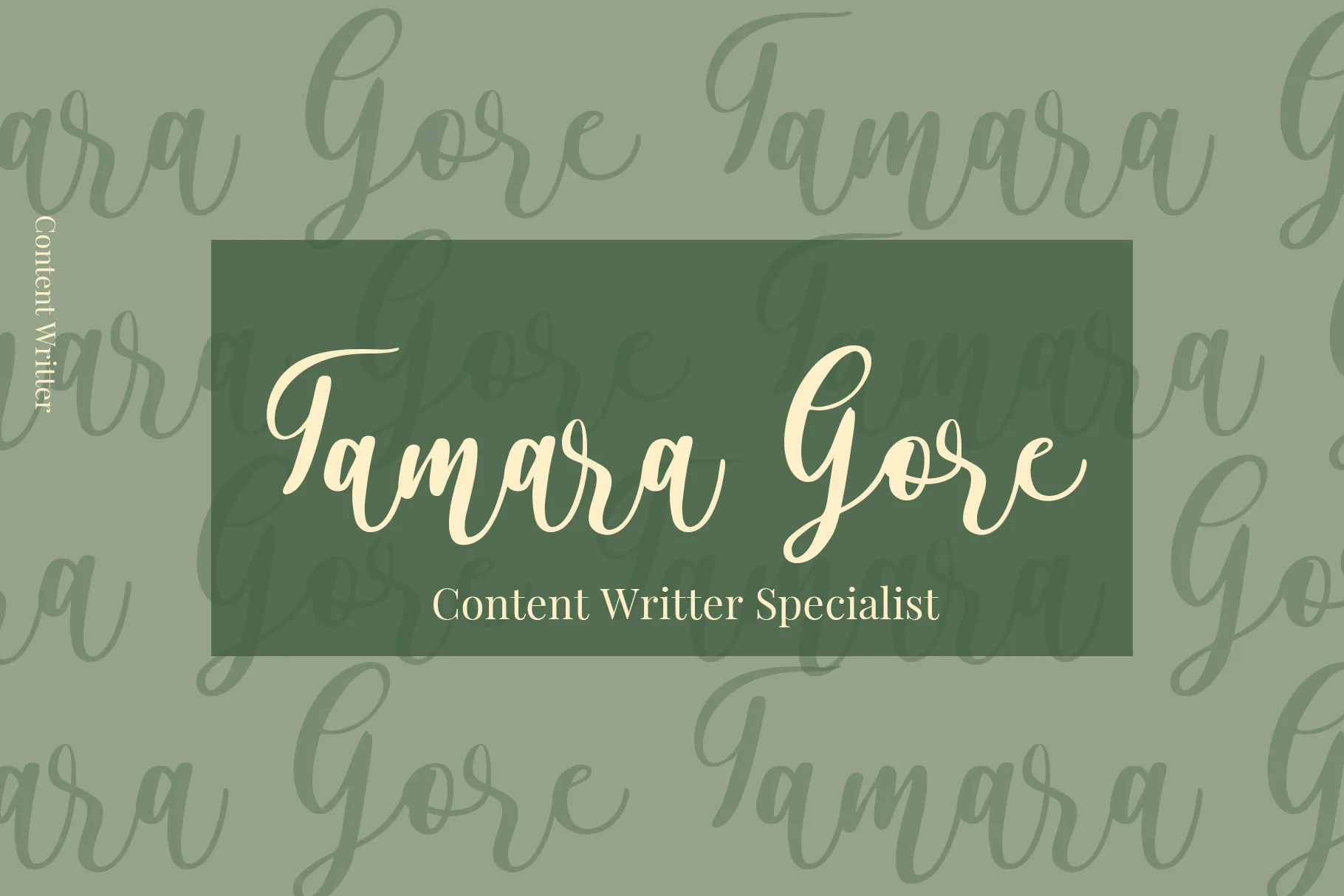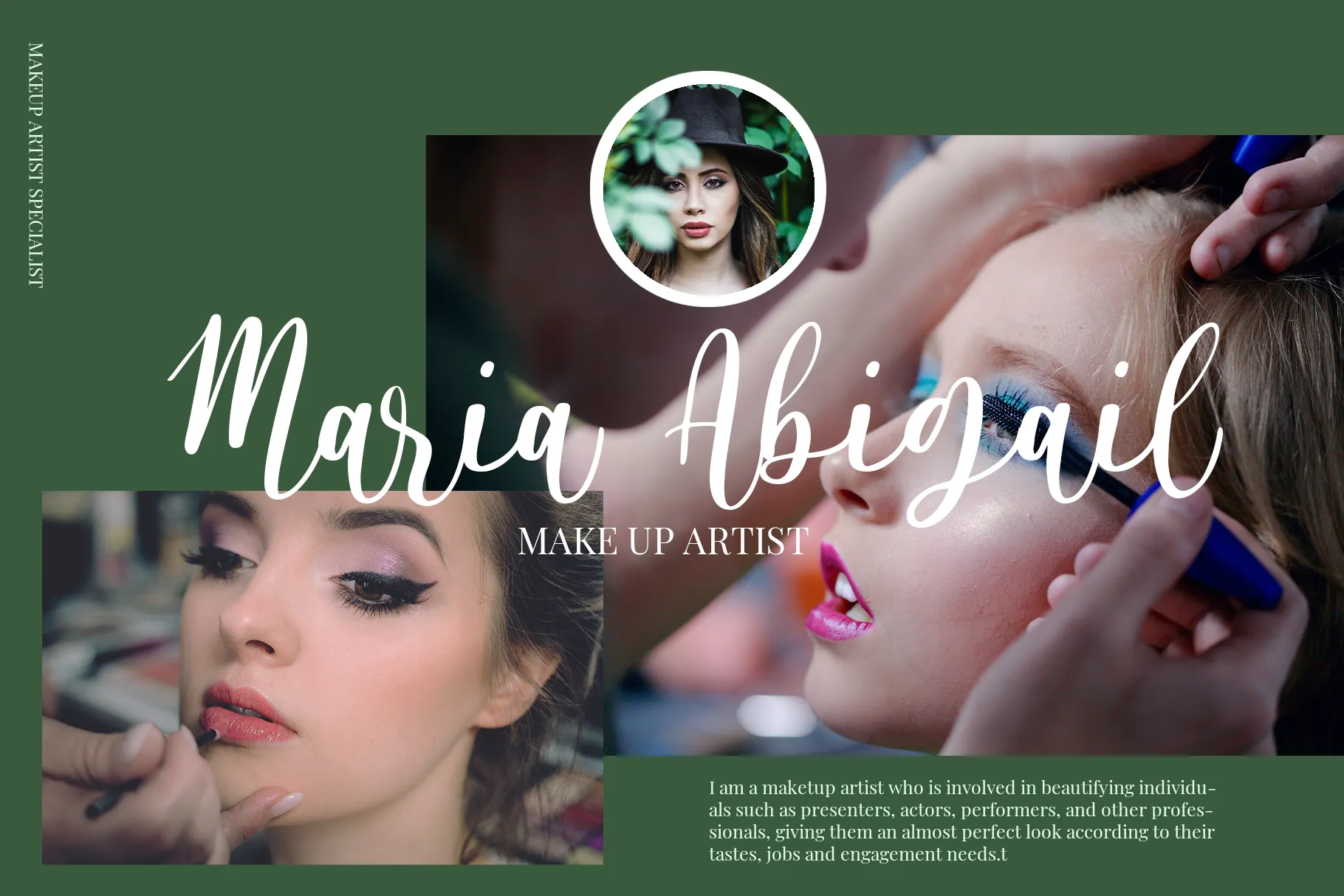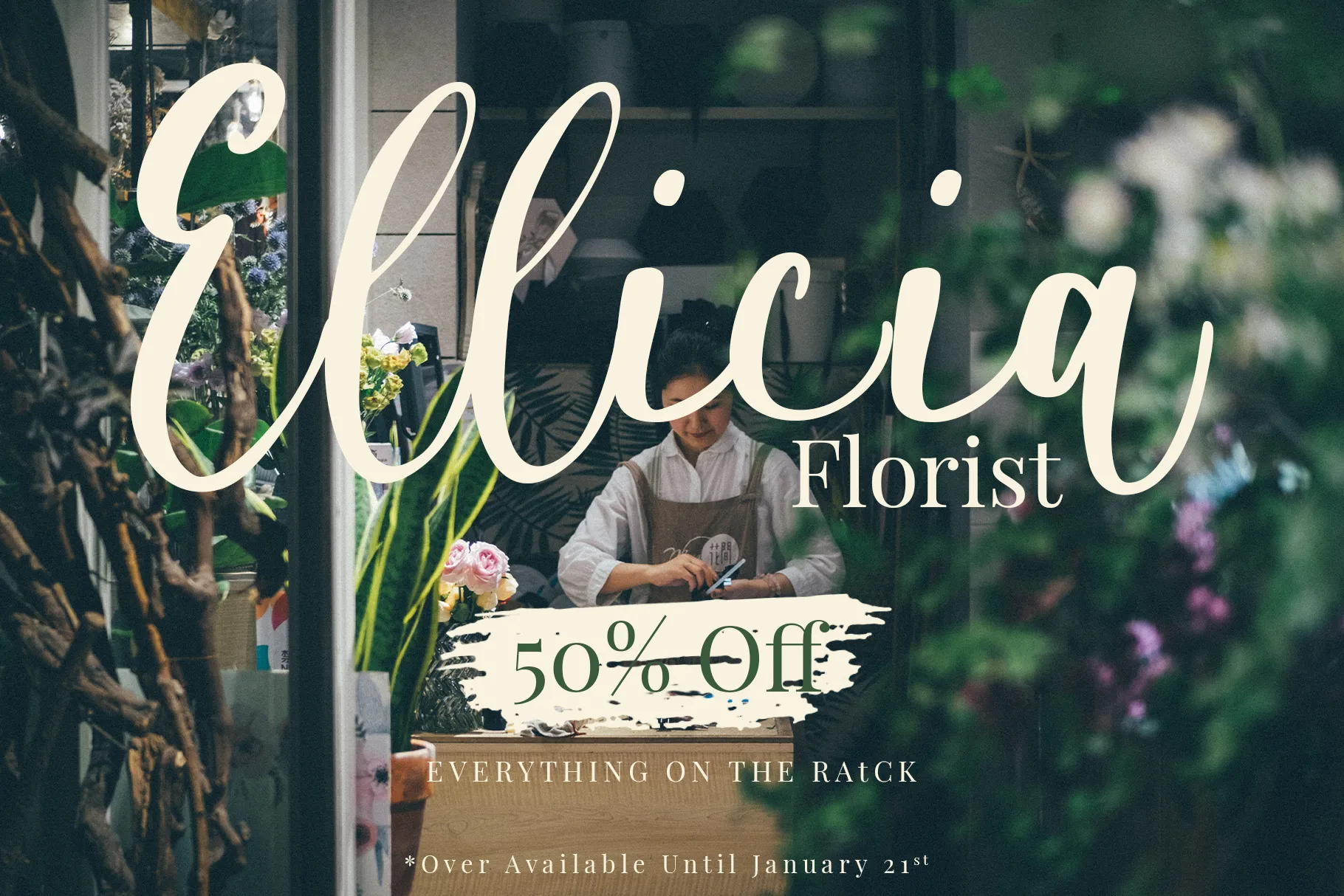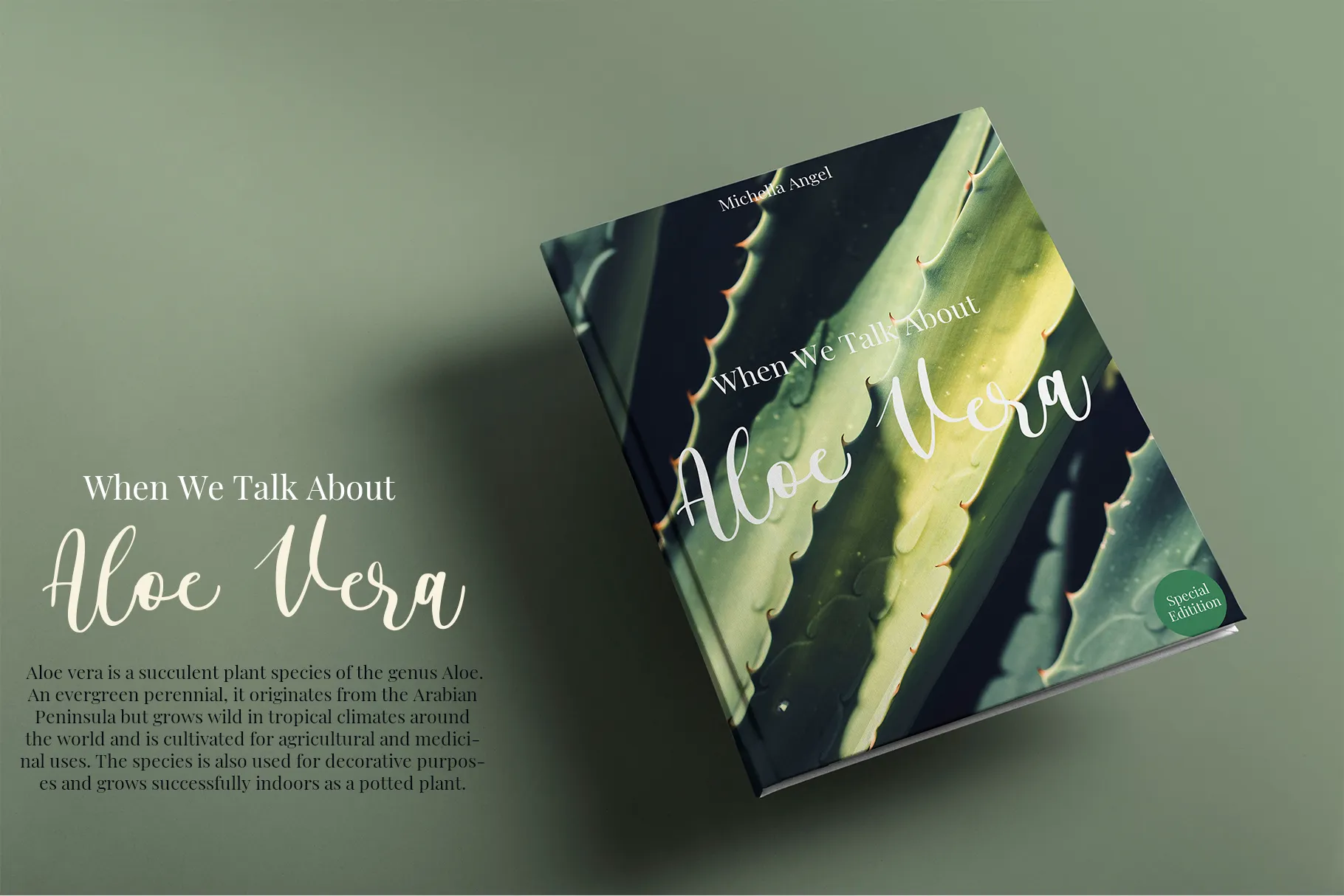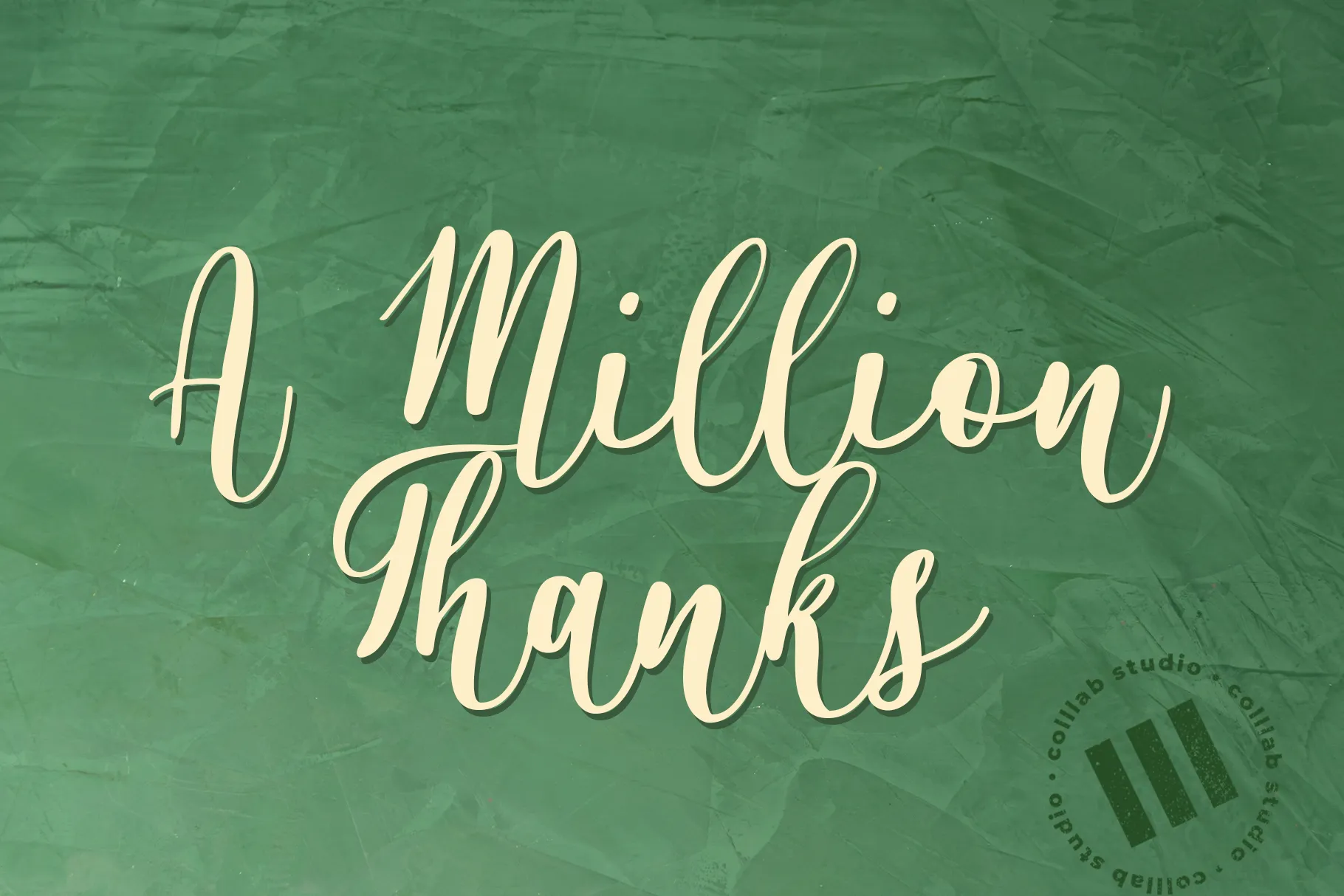
Alyssa Calligraphy is a graceful and stylish handwritten font that blends elegance with a touch of modern charm. Its flowing strokes and refined curves make it perfect for designs that need a romantic, feminine, or sophisticated feel. From wedding invitations and greeting cards to branding, packaging, and social media graphics, Alyssa Calligraphy adds timeless beauty to any project.
Inspiration behind the font
Alyssa Calligraphy was inspired by the art of classic calligraphy and the fluidity of handwritten lettering. The goal was to create a font that feels personal yet polished, bringing together the warmth of handcrafted writing and the versatility designers need for professional projects. Its balance of beauty and readability makes it a go-to choice for elegant design work.
Key Features
Uppercase & lowercase letters designed with graceful flow
Full punctuation & numerals for complete usability
Multilingual support for global reach
Smooth letterforms that give a natural handwritten look
Perfect for weddings, logos, quotes, product packaging, greeting cards, and editorial design